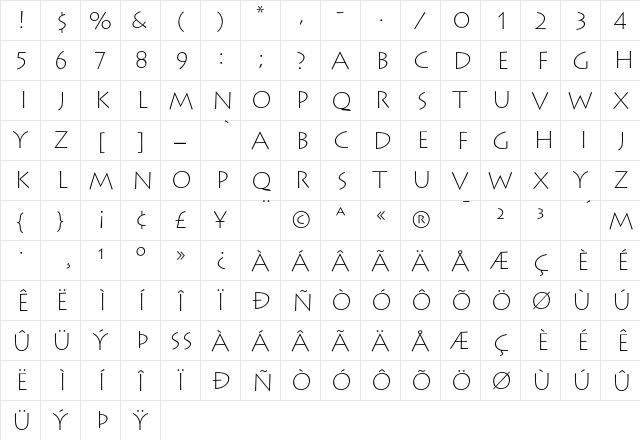
Lithos ExtraLight Font Preview
Lithos ExtraLight
Lithos ExtraLight Font Details
Design Context for Lithos Typeface
Lithos takes a measured approach to typography — its balanced proportions and neutral character make it a reliable workhorse for both digital and print work. The delicate stroke weight brings airiness and refinement to layouts.